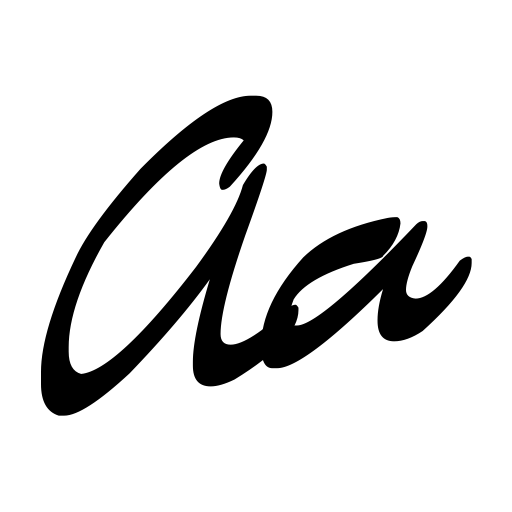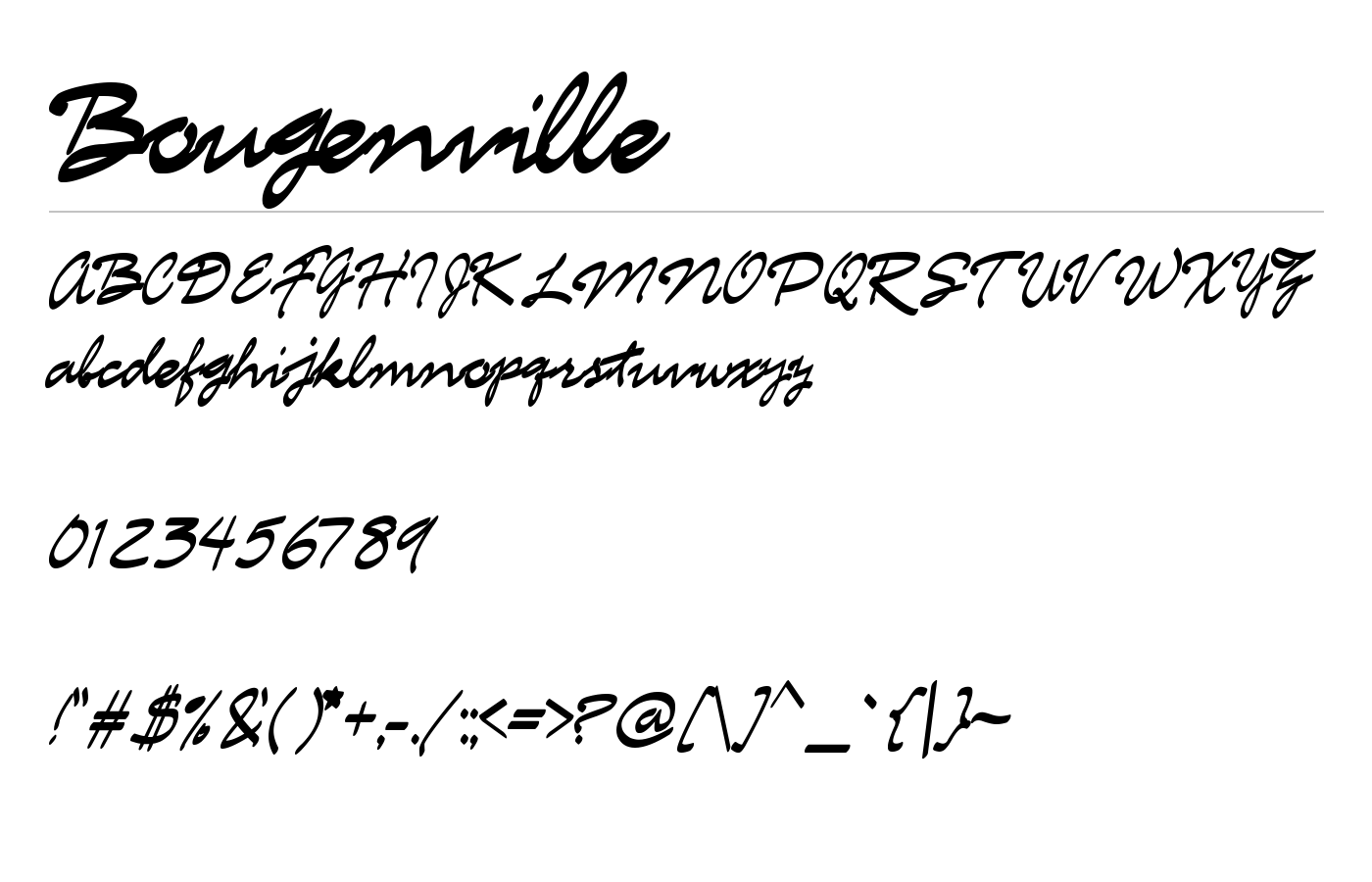
Bougenville is a lively and bold script font that captures the natural flow of handwritten cursive with confident, connected strokes. Its dynamic style and slightly slanted letterforms make it perfect for adding a personal, energetic touch to branding, invitations, and creative headlines. This font works beautifully where a stylish yet approachable and expressive feel is desired.
Bougenville Font
About Bougenville Font